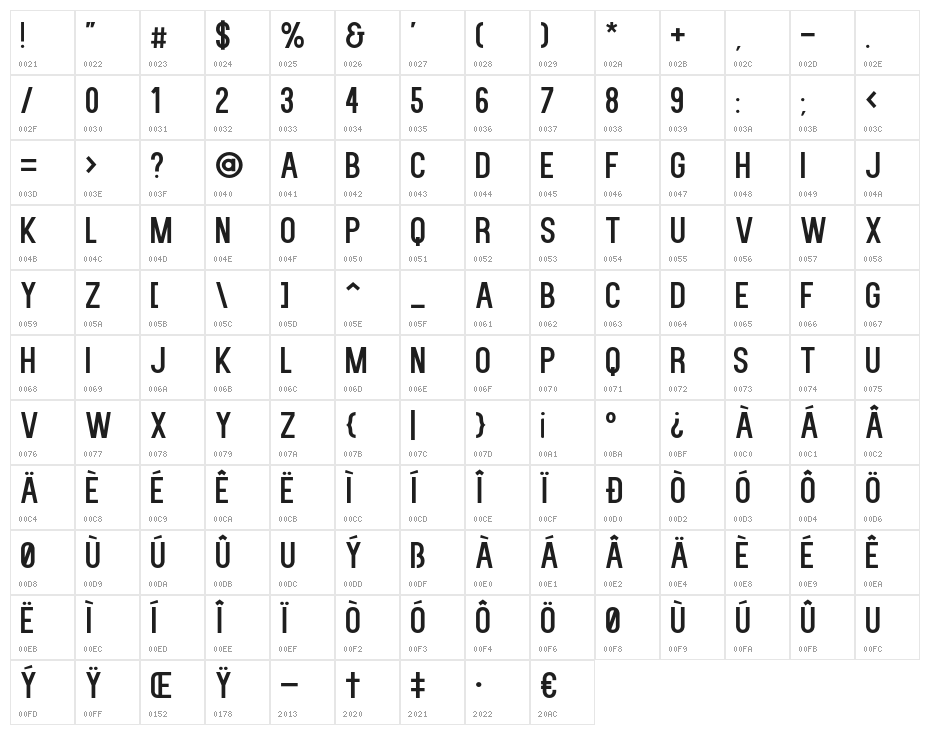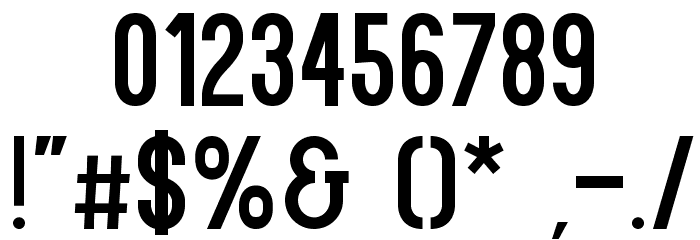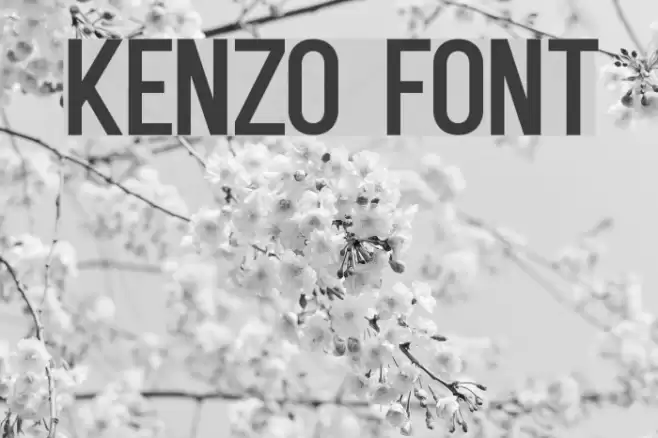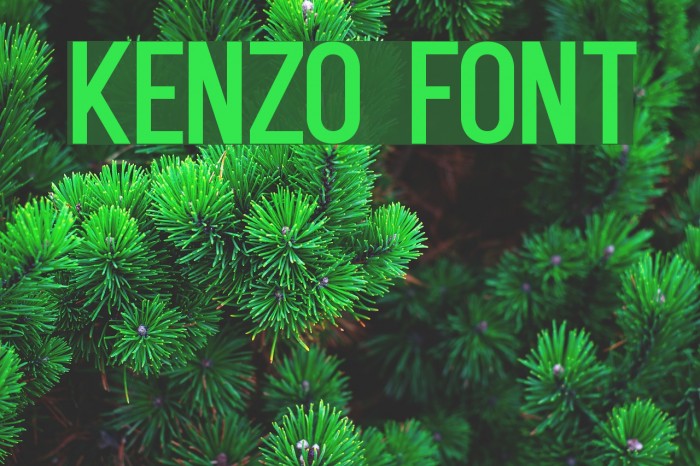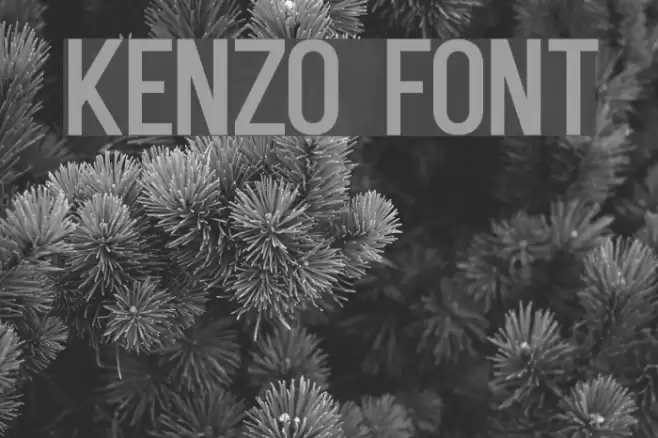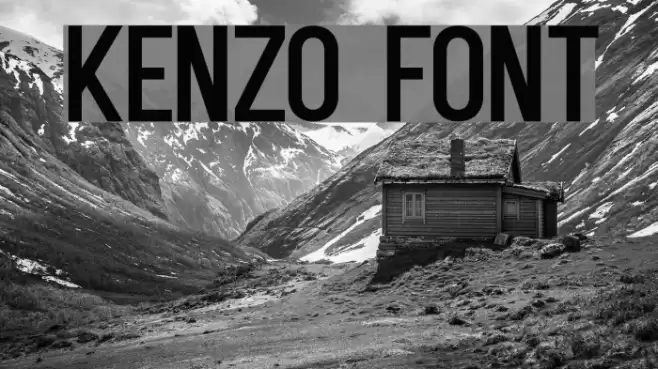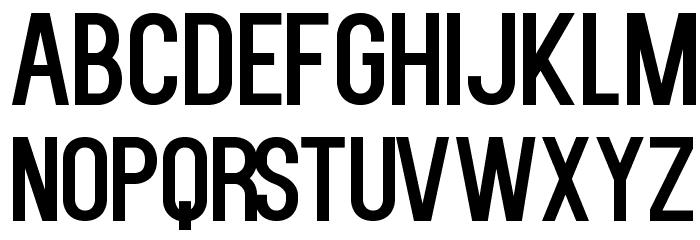
Kenzo Font
Kenzo Description
This font features a bold and modern sans-serif style with clean, straight lines and uniform stroke widths. The uppercase and lowercase letters are well-proportioned, offering a strong visual impact. The numerals are clear and legible, maintaining the same boldness as the alphabetic characters. Special characters are included, providing versatility for various design needs. The overall appearance is sleek and contemporary, making it suitable for a wide range of applications.
| Use Case | Headlines, Logos, Advertising |
| Proposed Projects | Ideal for branding, advertising, headlines, and digital media where a strong, modern presence is desired. |